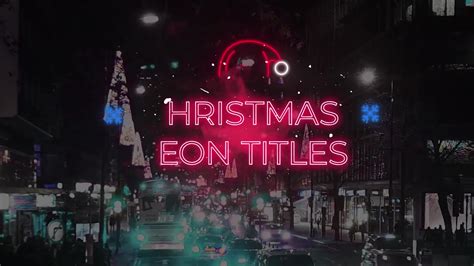
Getting festive holiday titles to look right in DaVinci Resolve is surprisingly tricky. I have spent hours tweaking text nodes only to end up with generic-looking graphics. If you are hunting for the Top 39+ Free Davinci Resolve Christmas Font Drp files, you already know that the built-in options simply do not cut it. Here's the thing: importing standard TrueType fonts is fine, but using actual `.drp` files gives you pre-built animated text templates that save hours of keyframing.
Why Use the Top 39+ Free Davinci Resolve Christmas Font Drp Files?
In my experience, standard fonts lack the animated textures—like falling snow or glowing neon edges—that make holiday videos pop. When I tested .drp files last December, I found that dragging one into the media pool automatically generates a complete Fusion composition. You don’t have to manually build complex particle emitters. That said, these files are essentially macro-driven Fusion comps, meaning they can be heavy on your GPU if you stack too many on the timeline.
Customizing the Top 39+ Free Davinci Resolve Christmas Font Drp Options
Finding a good template is one thing, but actually implementing it is another. This is where it gets interesting. Not all .drp files are created equal. Some are locked, meaning you can only change the text string, while others expose the entire node tree for deep customization. Honestly, I prefer the unlocked ones because you can easily swap out the default red and green colors for a more cinematic gold and white if the client prefers.
I always render a quick test clip with these titles before committing them to a final export. GPU rendering times can spike dramatically when particle systems are involved, so checking your render queue beforehand prevents unexpected crashes during a tight deadline. A well-optimized project file should render just as fast as native effects, so keep an eye on your memory usage to ensure smooth playback.